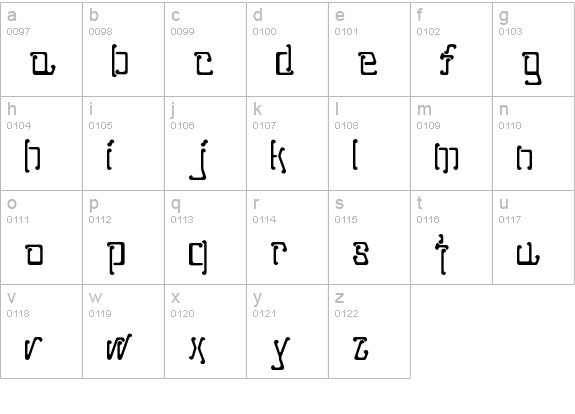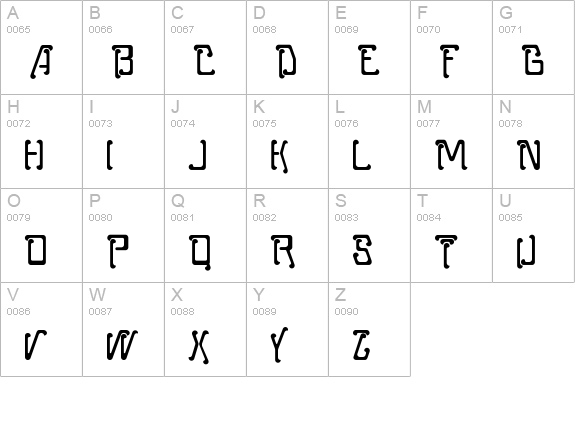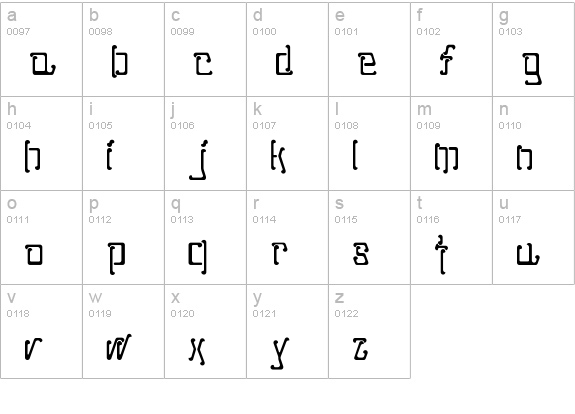
Moped-SemiBold is a sub-bold, structured variant in the Moped typeface family \xE2\x80\x94 well suited to sub-headlines and emphasised passages.
Moped-SemiBold is a modern and stylish font that exudes confidence and professionalism. With its bold and eye-catching design, this font is perfect for making a statement in any project. The sturdy and balanced letterforms of Moped-SemiBold make it ideal for headlines, logos, posters, and more. What sets Moped-SemiBold apart is its versatility and readability, making it suitable for a wide range of design applications. Whether you're creating a sleek branding project or a striking editorial layout, this font will help you stand out from the crowd. And the best part? Moped-SemiBold is available for free download at FontsMarket.com. So you can elevate your designs with this exceptional font without breaking the bank. Don't miss out on this opportunity to enhance your creative projects with the dynamic and impactful Moped-SemiBold font.